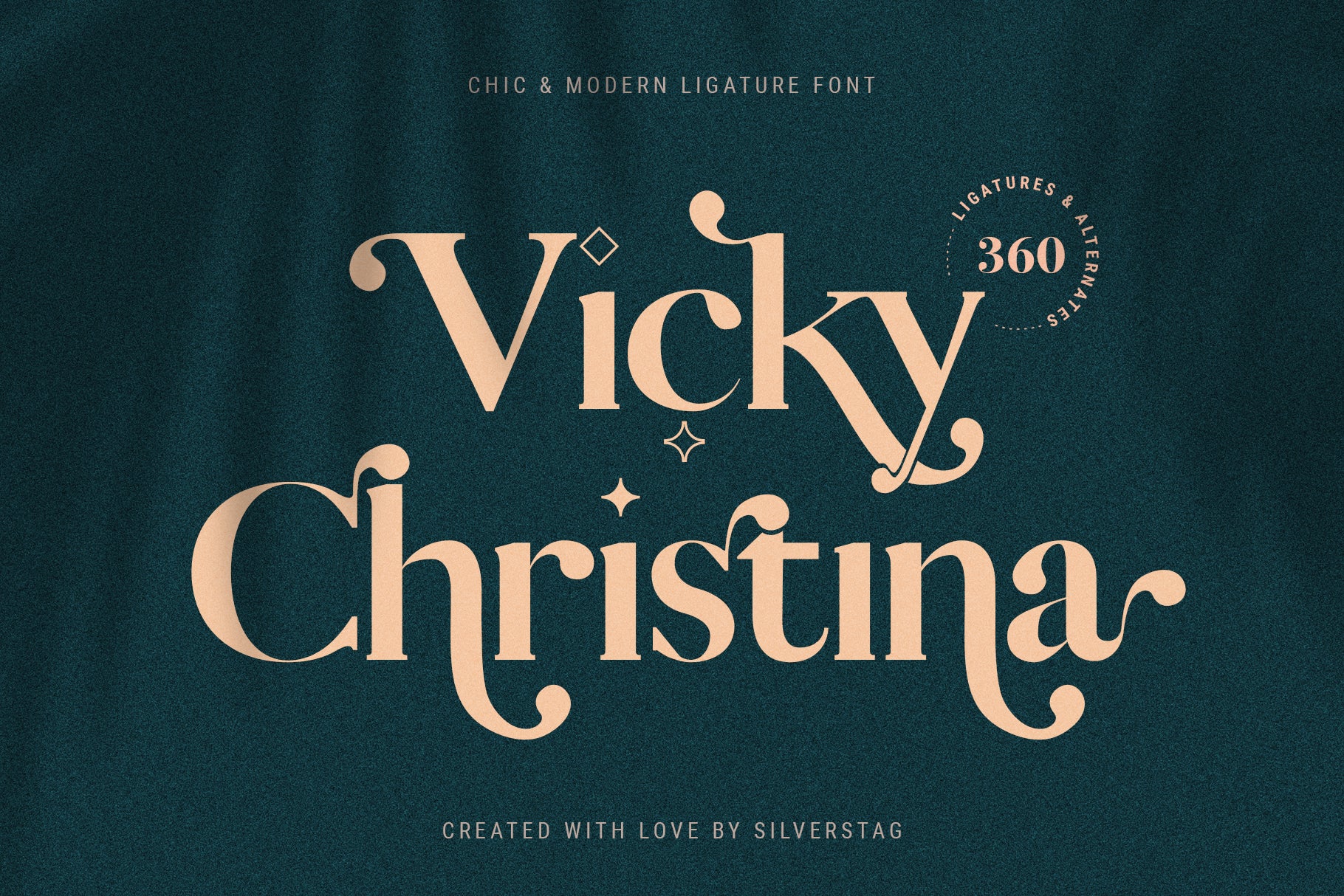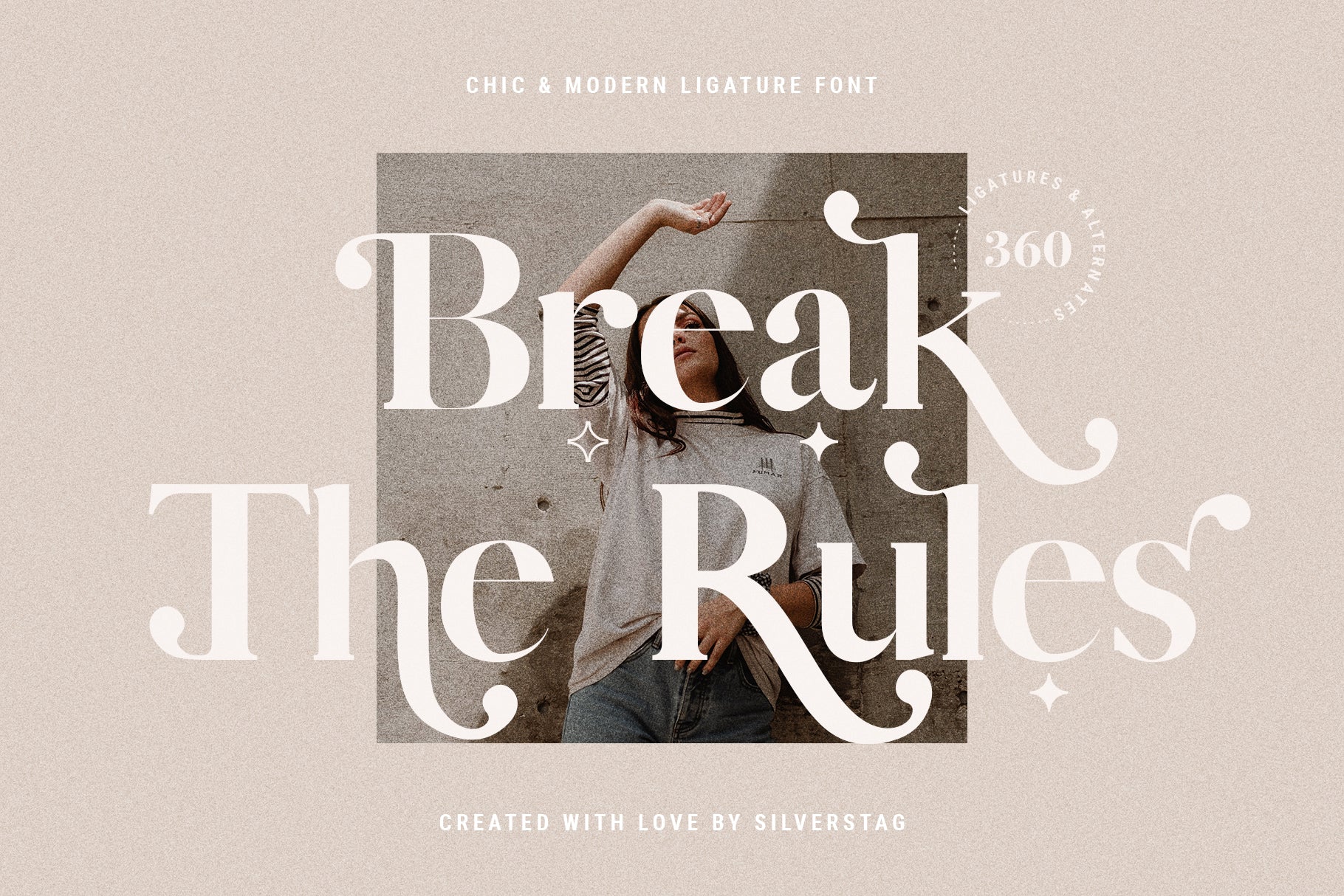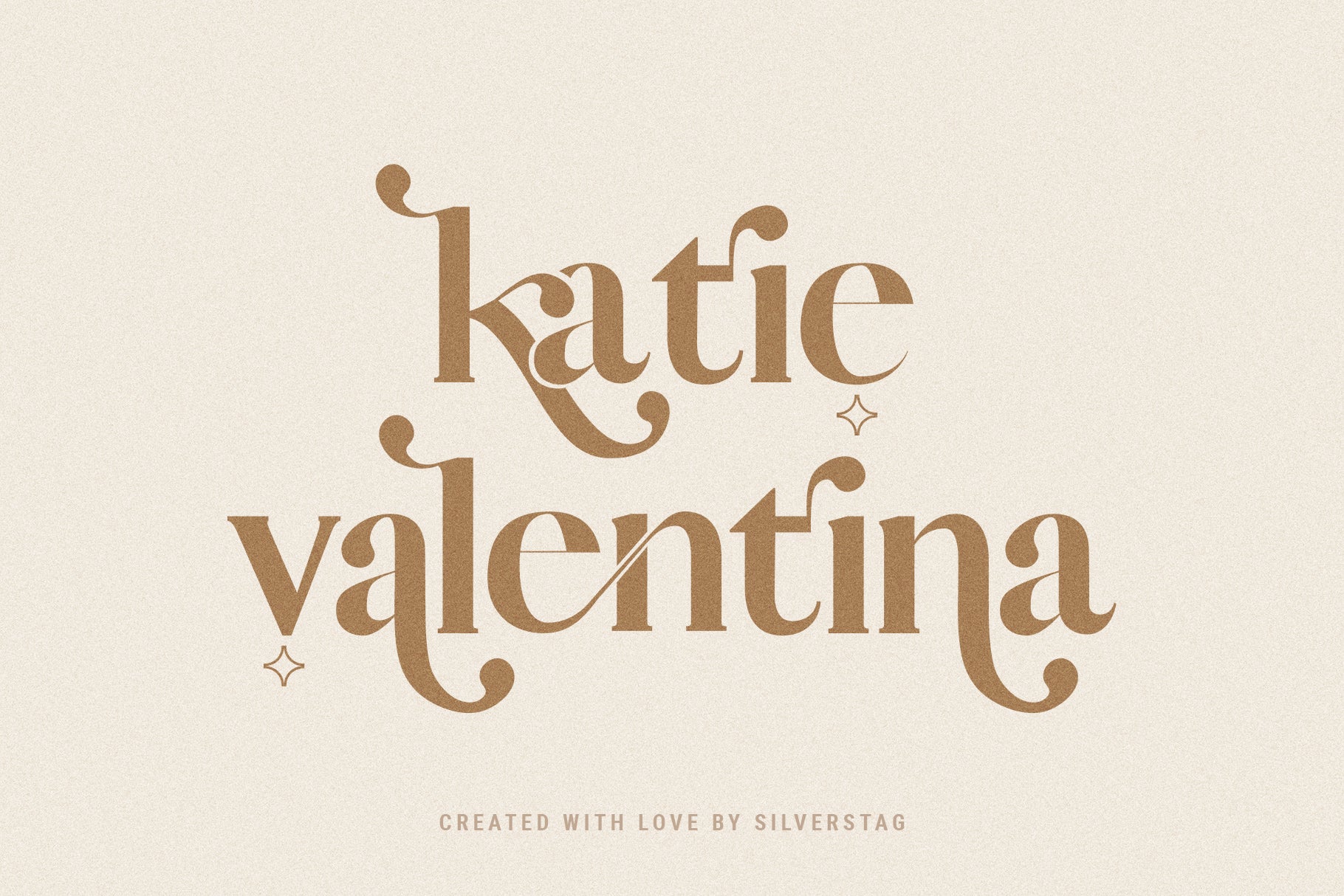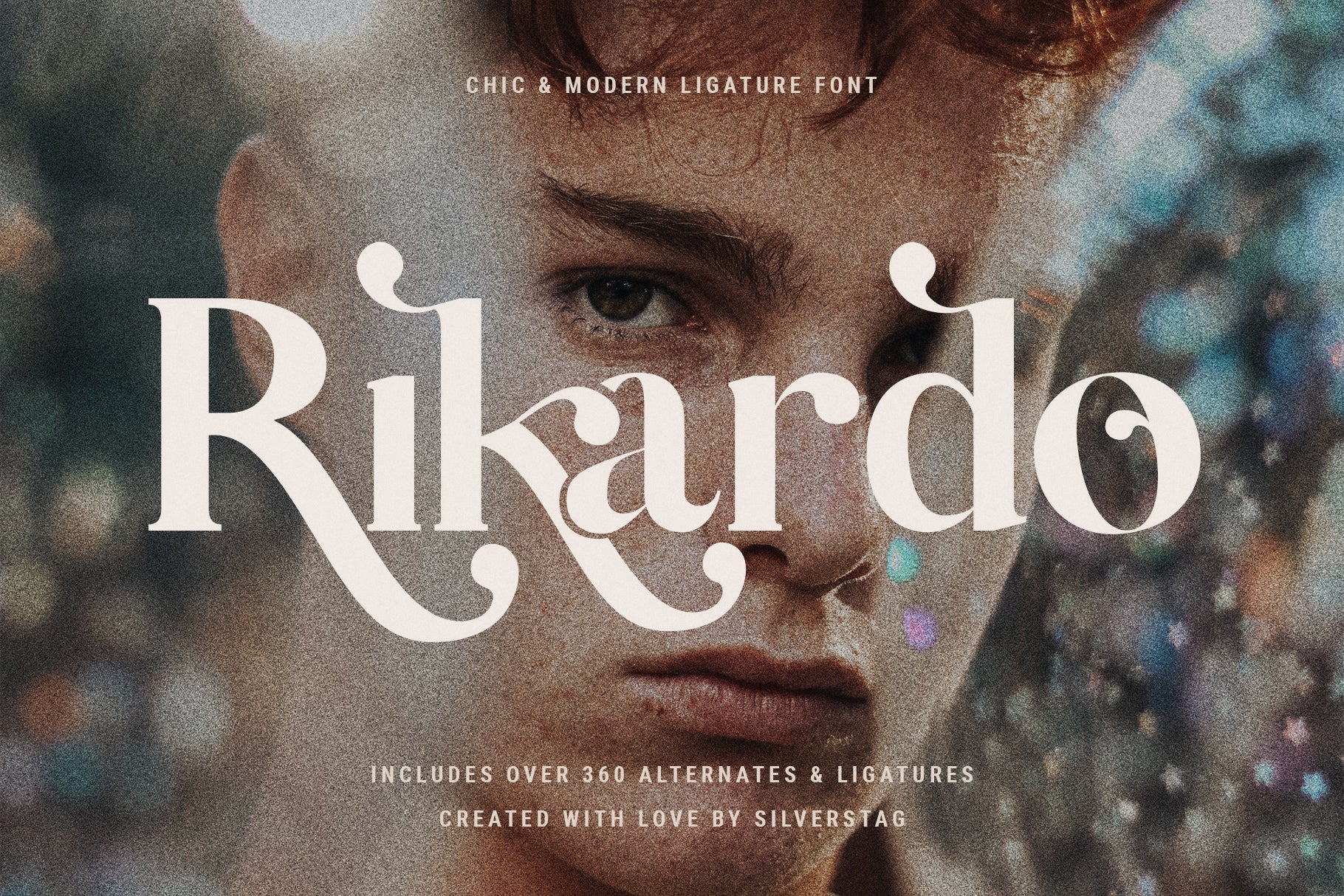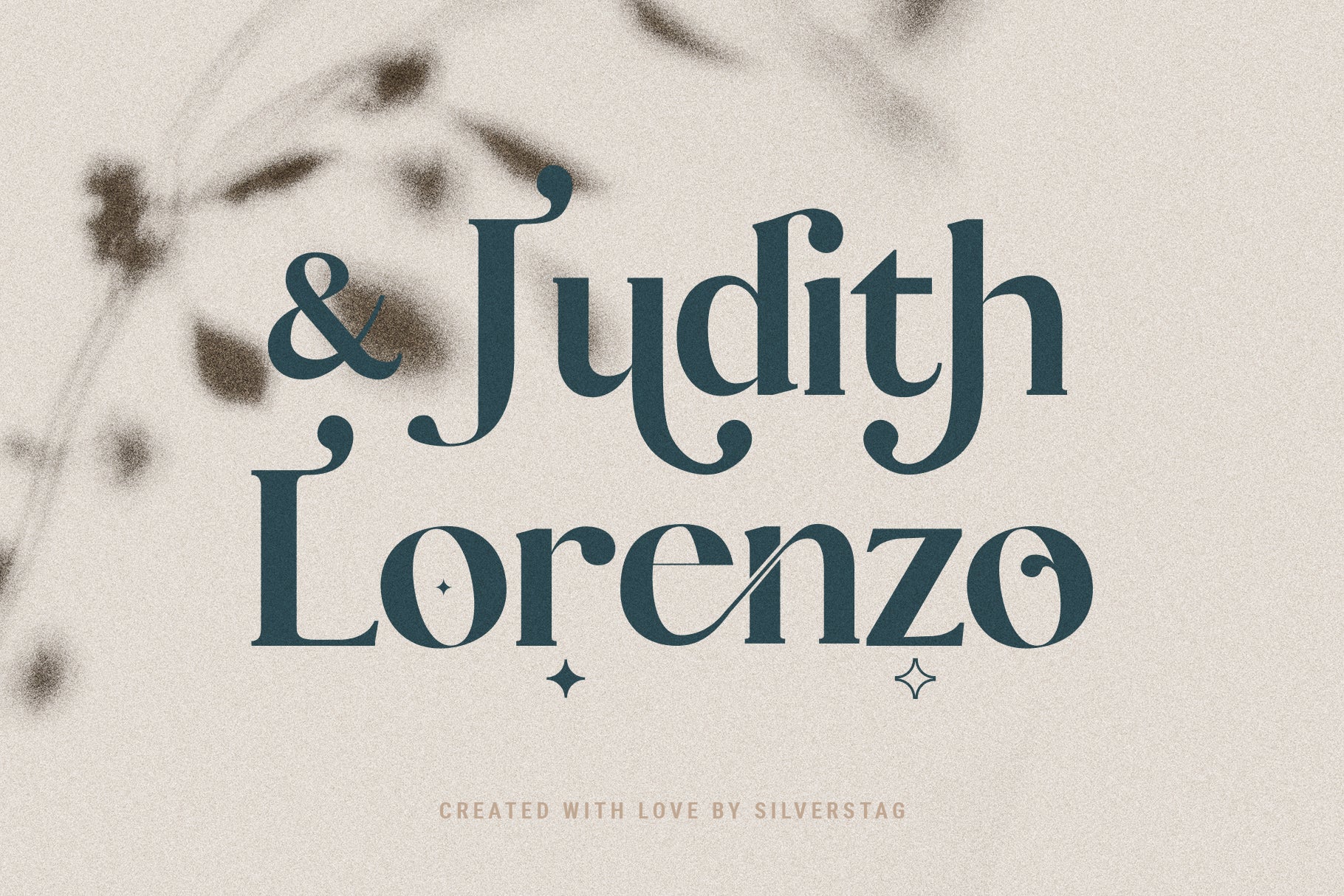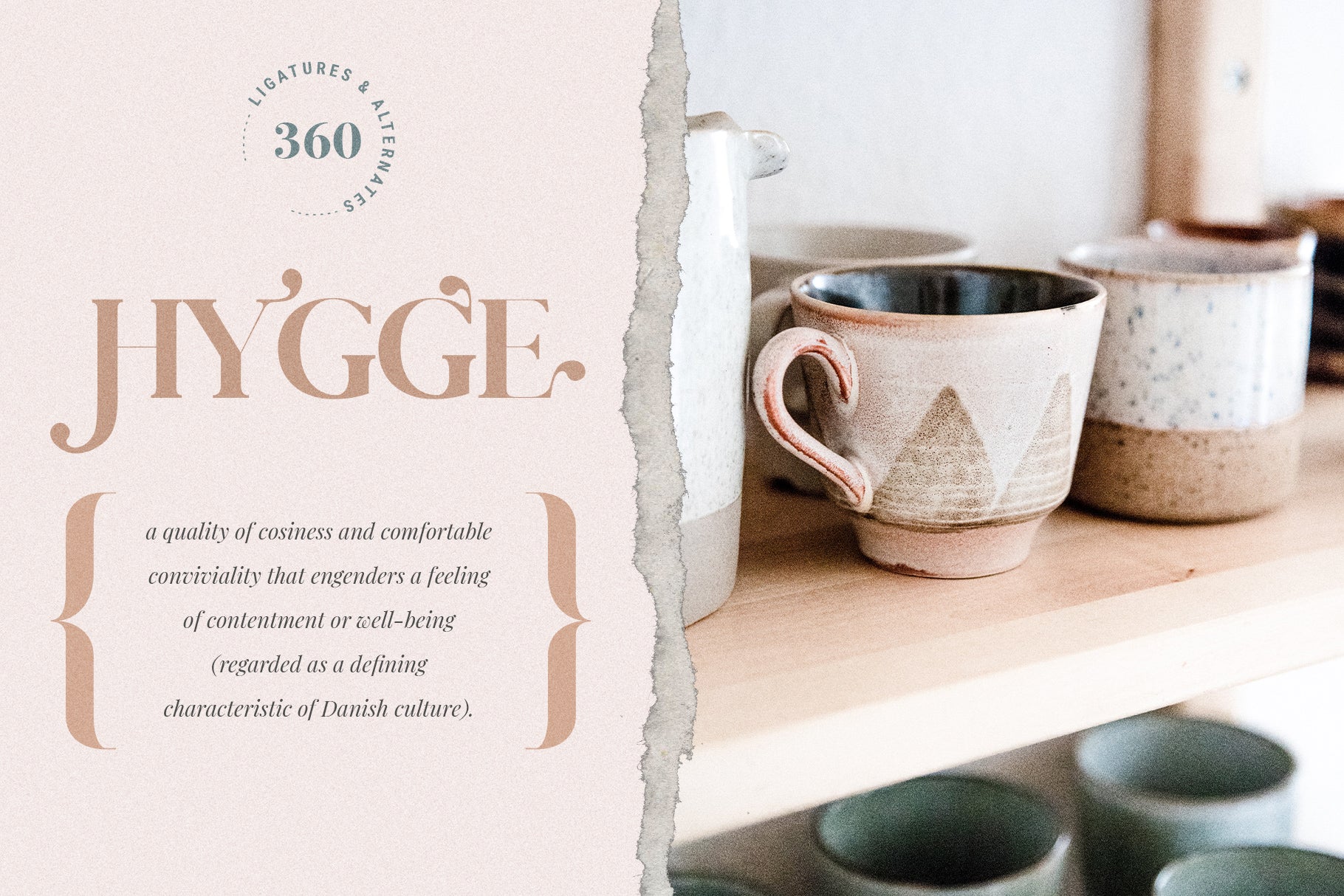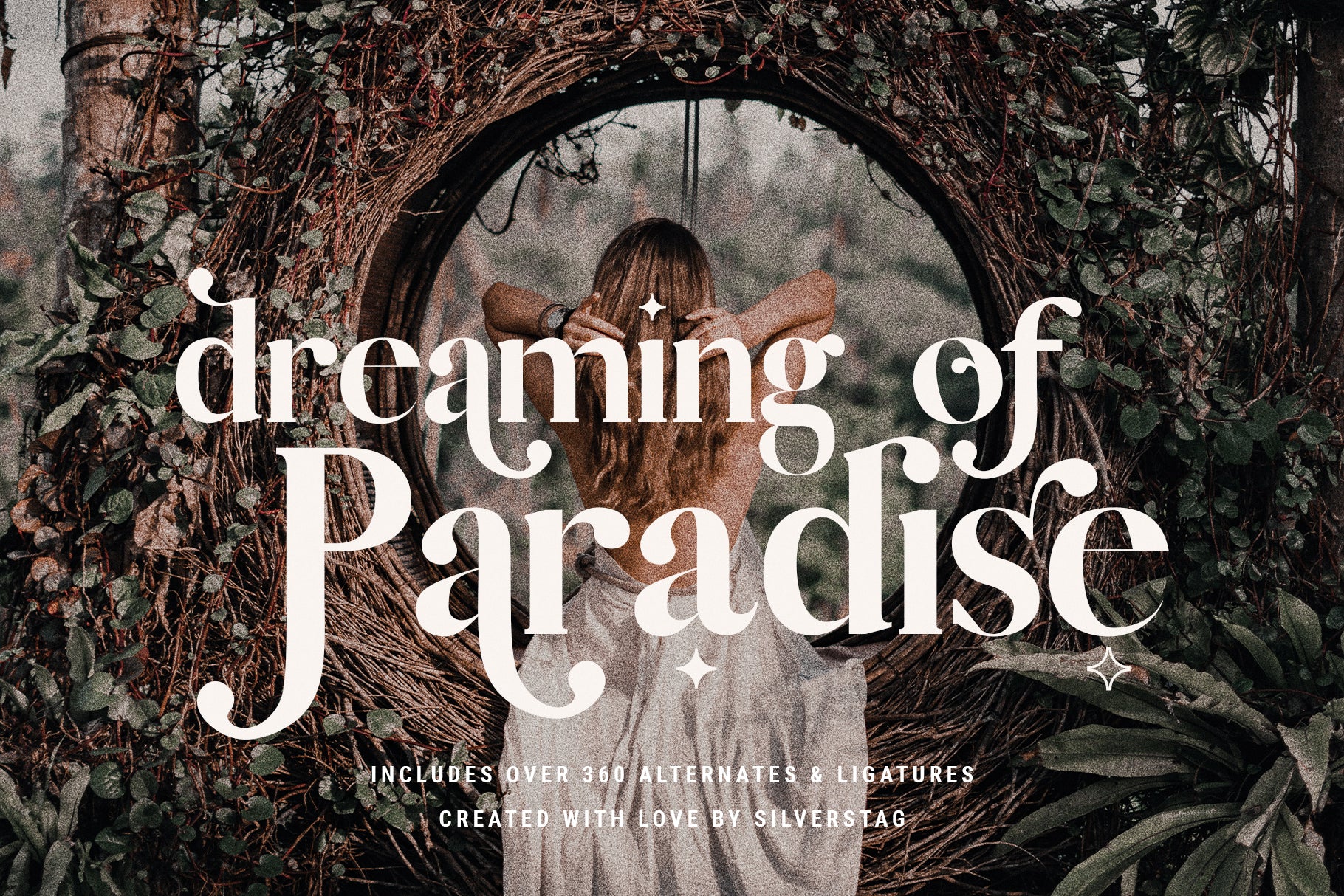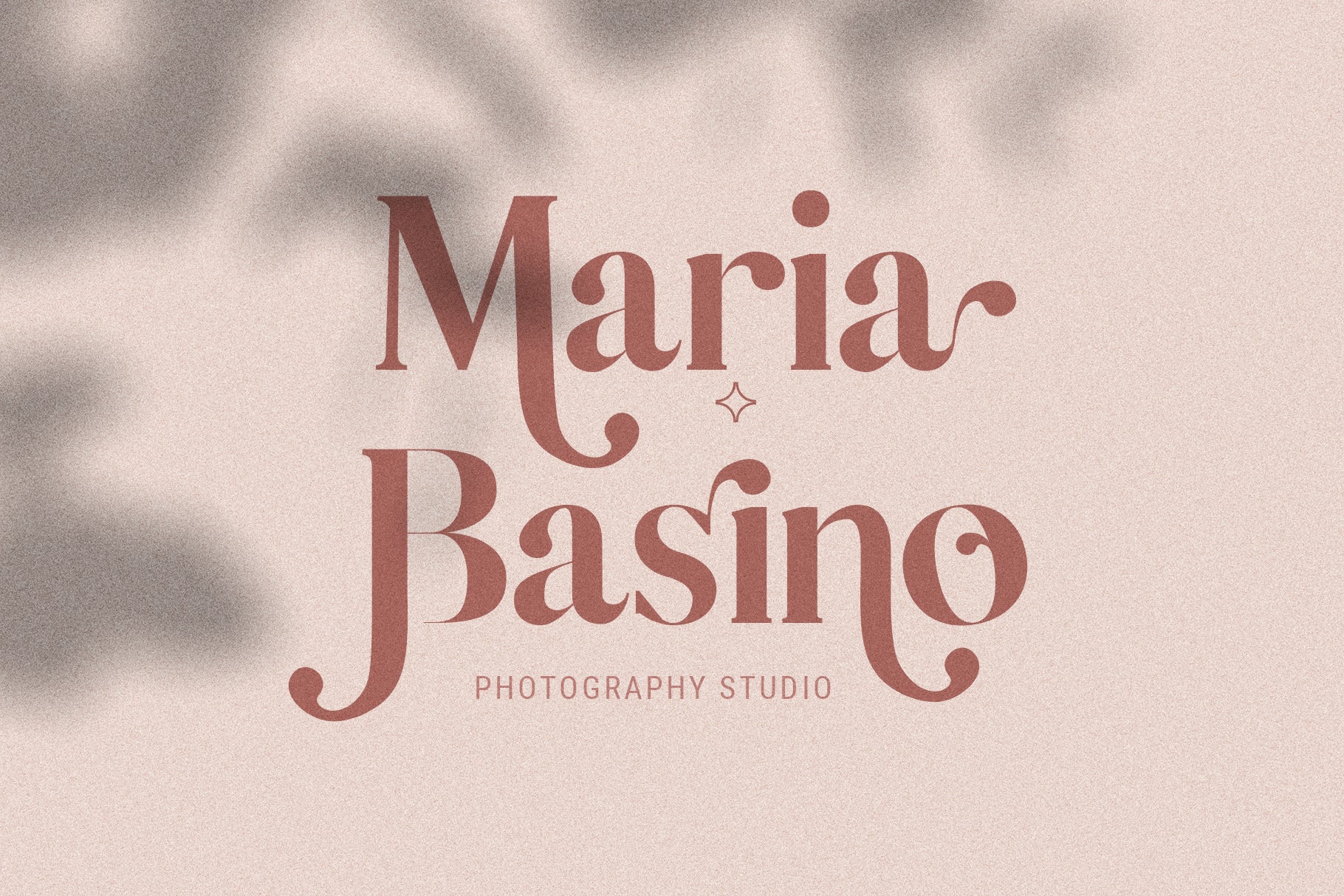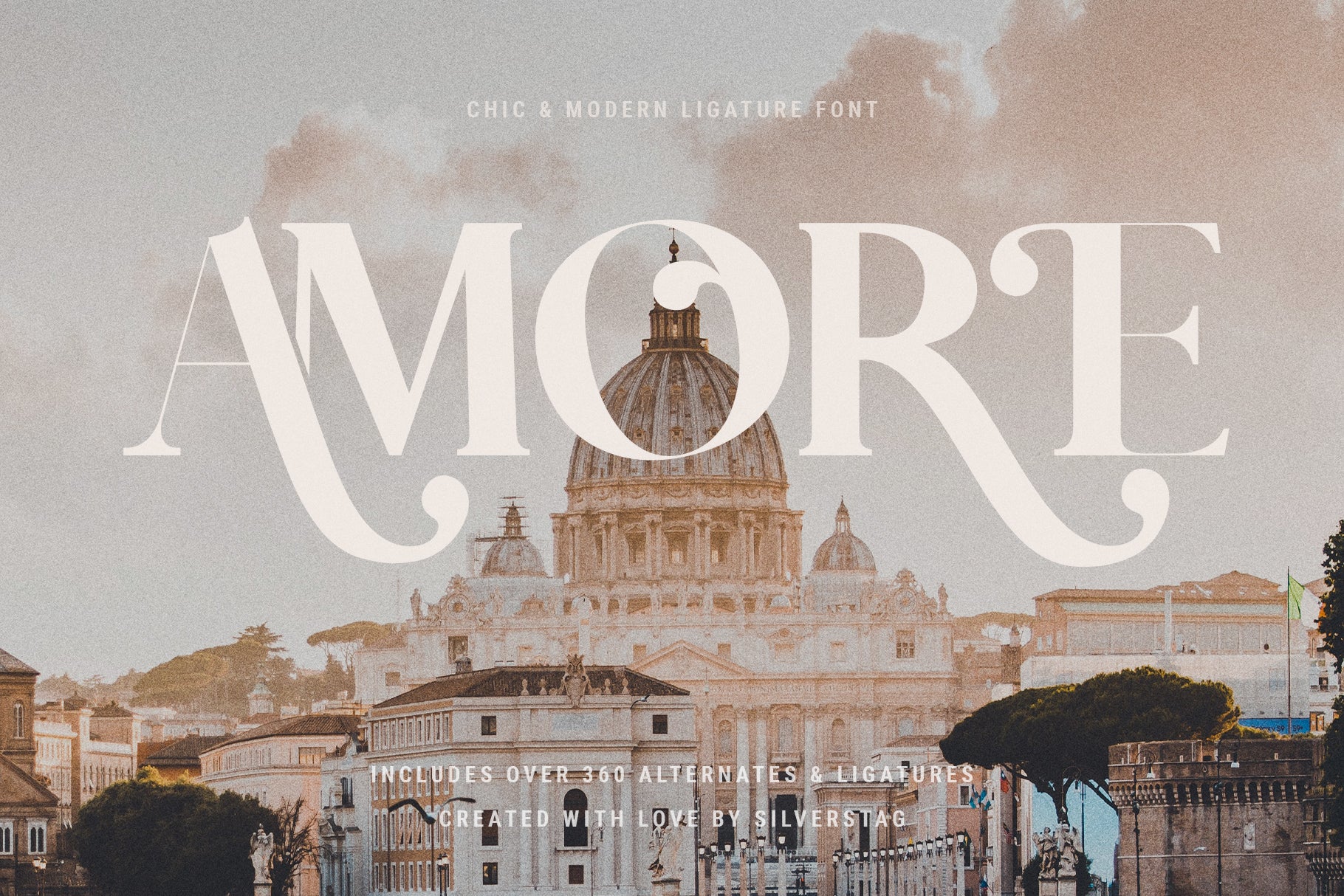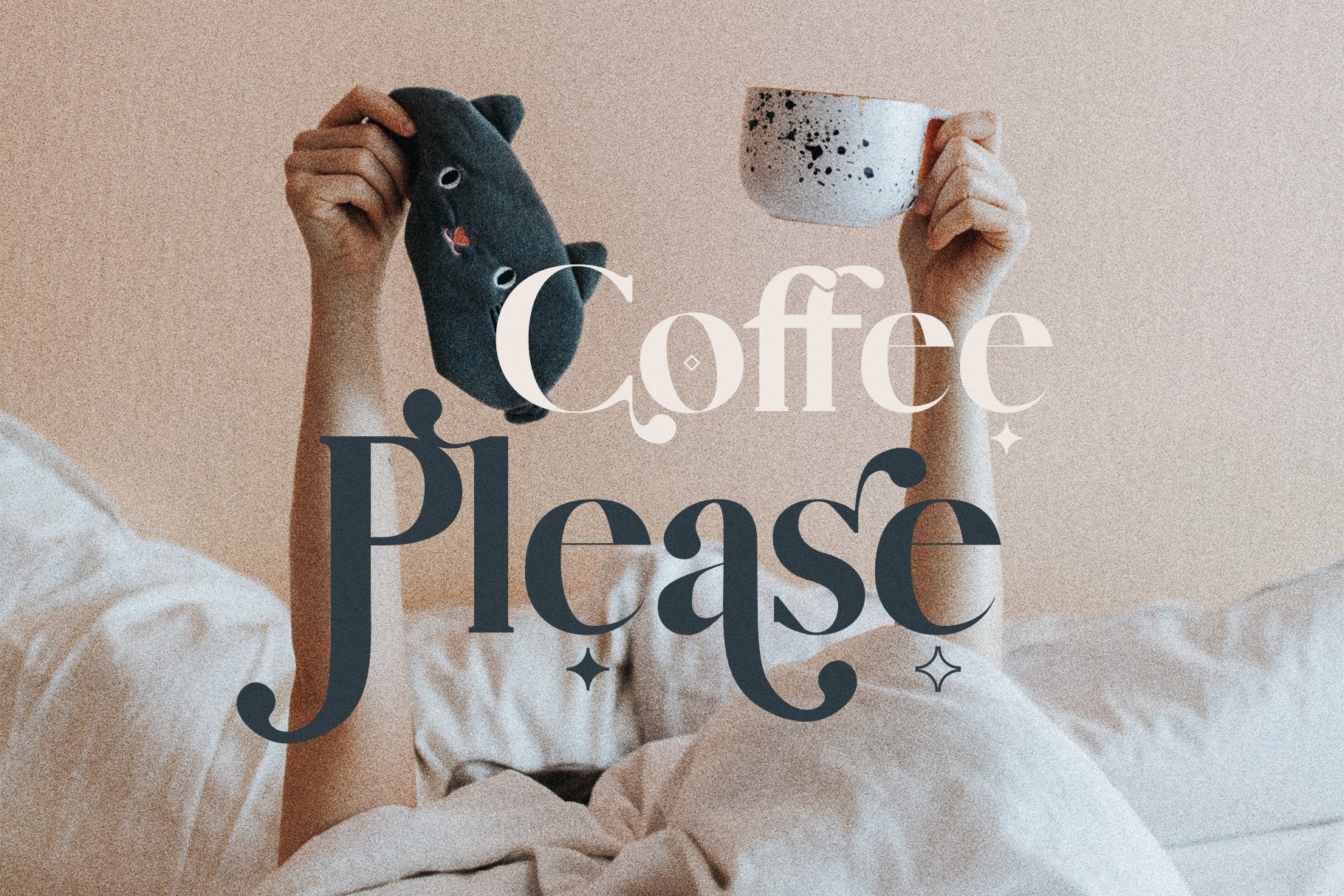
• Vicky Christina ligature serif font hero in peach serif over dark teal
• Break the rules specimen in Vicky Christina ligature serif font over a portrait
• Katie Valentina specimen in Vicky Christina ligature serif font over cream
• Rikardo specimen in Vicky Christina ligature serif font over a portrait of a young man
• Judith Lorenzo specimen in Vicky Christina ligature serif font over a pale ground with leaf shadows
• Hygge specimen card in Vicky Christina ligature serif font beside ceramic mugs
• Dreaming of Paradise specimen in Vicky Christina ligature serif font over a vine arch portrait
• Maria Basino photography studio specimen in Vicky Christina ligature serif font over blush
• Amore specimen in Vicky Christina ligature serif font over a Rome skyline with a basilica dome
• Coffee Please specimen in Vicky Christina ligature serif font over a person with a mug in bed
• Clement Baptiste specimen in Vicky Christina ligature serif font over brown
• April Fashion specimen in Vicky Christina ligature serif font over a woman with birds
• Full language support specimen in Vicky Christina ligature serif font with accented glyphs
• Magical Wild Stories specimen in Vicky Christina ligature serif font over zebras on a savanna
• Aquarel specimen in Vicky Christina ligature serif font over tropical leaves
Vicky Christina - Ligature Serif Font
Introducing Vicky Christina, a luxurious and expressive serif font bursting with personality. Featuring over 360 ligatures and alternates, this hand-crafted typeface offers endless combinations for custom logotypes, wedding invitations, editorial layouts, and chic social media graphics.
Designed with fashion-forward branding and romantic aesthetics in mind, each letterform is thoughtfully drawn...
Introducing Vicky Christina, a luxurious and expressive serif font bursting with personality. Featuring over 360 ligatures and alternates, this hand-crafted typeface offers endless combinations for custom logotypes, wedding invitations, editorial layouts, and chic social media graphics.
Designed with fashion-forward branding and romantic aesthetics in mind, each letterform is thoughtfully drawn with swirls, flourishes, and stylish contrasts. Vicky Christina allows your typography to feel both elegant and unique—perfect for everything from boutique packaging to lifestyle blogs and event materials.